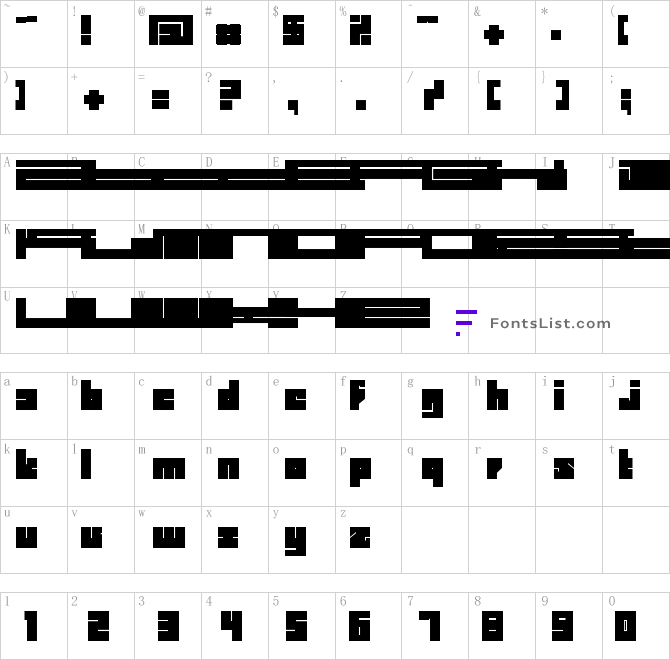
- Font Name:BD BillDing
- Subfamily:Long
- Subfamily:Macromedia Fontographer 4.1.2 BD BillDing Long
- Full Name:BD BillDing Long
BD-BillDing-Long-copy-2-.ttf is a very beautiful artistic font, BD-BillDing-Long-copy-2-.ttf is widely used in the design and printing of various books and pictures,BD-BillDing-Long-copy-2-.ttf has a strong visual impact,BD-BillDing-Long-copy-2-.ttf is a commonly used font in newspapers, magazines and books, and is used in posters, e-commerce Poster design, store design, logo design, font design and other fields.BD-BillDing-Long-copy-2-.